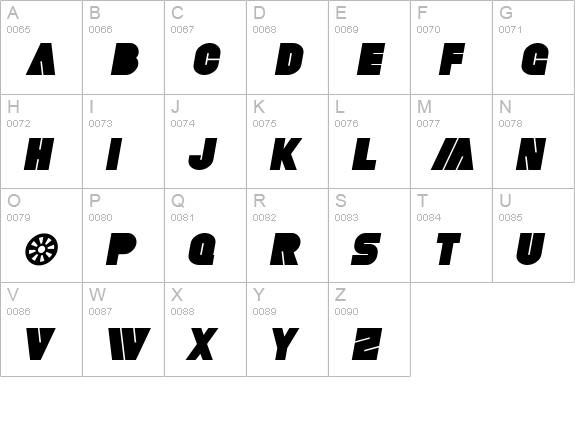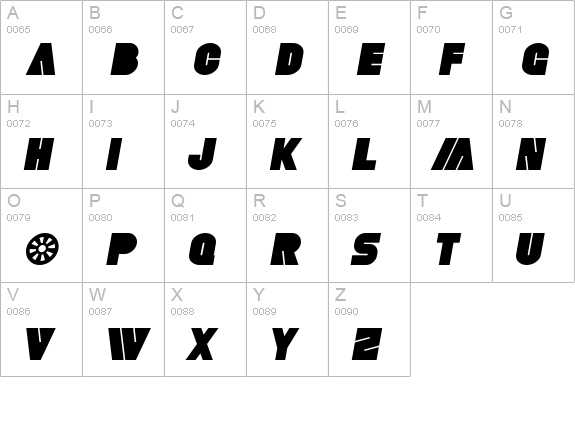
SF Fortune Wheel Bold Italic Font Details
SF Fortune Wheel Bold Italic is a strong, high-contrast, italic variant in the SF typeface family \xE2\x80\x94 well suited to headlines, attention-grabbing titles, and strong calls-to-action.
The SF Fortune Wheel Bold Italic font is a captivating and stylish typeface that effortlessly combines boldness and elegance. Its bold strokes and slanted italics give it a unique and dynamic appearance that is perfect for making a statement in your designs. This font is designed with utmost precision, ensuring each character is crafted with attention to detail. The sharp and clean lines of SF Fortune Wheel Bold Italic make it highly legible, even at smaller sizes. Whether you're designing a logo, creating a poster, or crafting a professional document, this font will add a touch of sophistication and flair to your work. One of the best things about SF Fortune Wheel Bold Italic is that it is available for free download at FontsMarket.com. This means that you can easily access and use this stunning font without any cost. Its freely available nature makes it an excellent choice for both personal and commercial projects, allowing you to add a touch of professionalism and creativity without breaking the bank. With SF Fortune Wheel Bold Italic, you have the freedom to experiment and explore various design possibilities. Its versatility allows it to work well in a wide range of applications, from branding and advertising to web design and beyond. This font truly has the potential to elevate your designs and make them stand out from the crowd. Download SF Fortune Wheel Bold Italic today at FontsMarket.com and unlock a world of design possibilities. Embrace the sleek and modern aesthetic of this font and let it inspire your creativity. Whether you're a professional designer or a hobbyist, this font is sure to become a valuable asset in your toolkit. Don't miss out on the opportunity to enhance your designs with this bold and beautiful typeface.